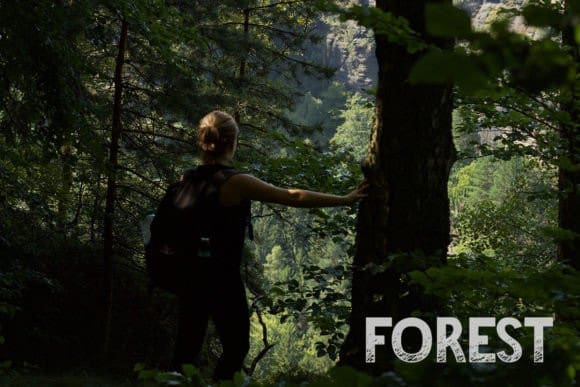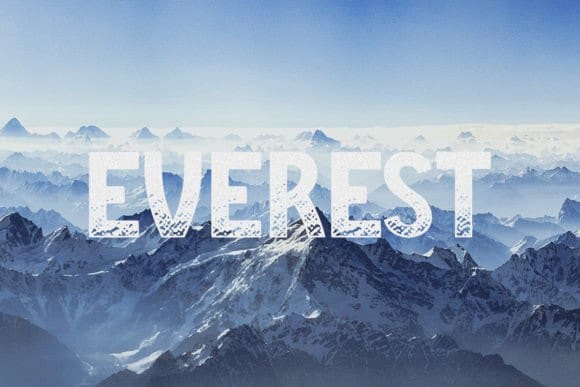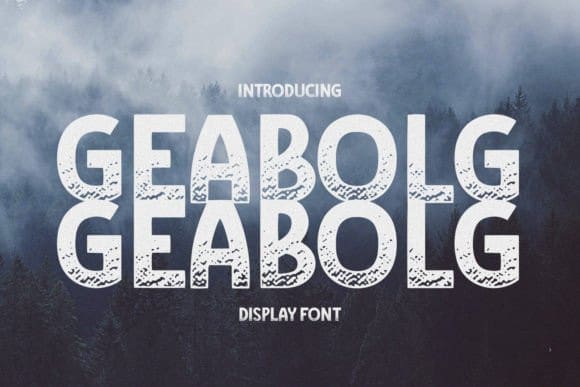
Geabolg Display Font
Geabolg Display Font is an industrial typeface with a masculine style, suitable for your design needs that need a classic, vintage touch, but still modern. This font is perfect, for any logo, product label, poster, or design.